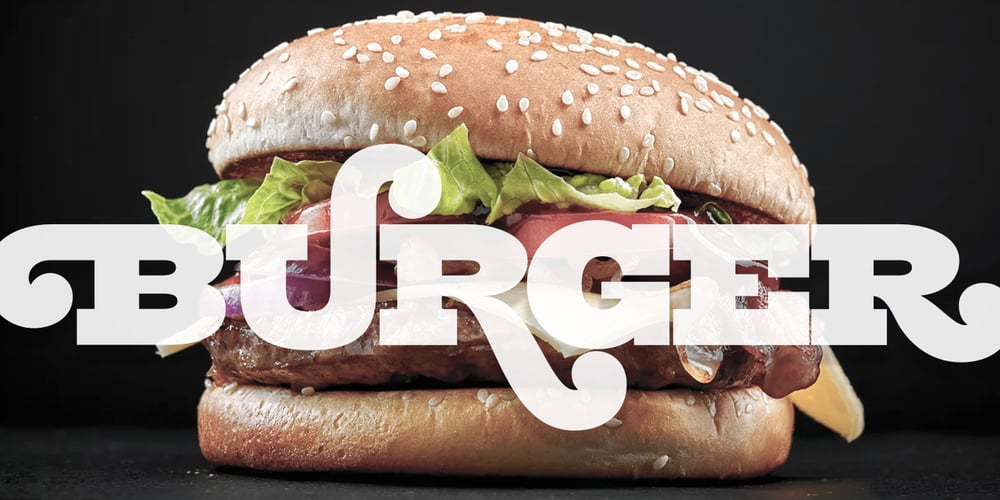
Burger Font Family was designed by Maximiliano R. Sproviero and published by Sproviero Type. Burger contains 3 styles and family package options. Inspired in the world of the fast-food, my aim with Burger was to achieve a sexy slab serif font. Since it’s not very common to see slabs with swashes I consider this project as an experiment with interesting results. In order to mantain an even weight on the written word, all the glyphs including the swashy ones had to look like compact blocks: This makes the font work much better used with almost no leading, as seen in posters above. Despite the formal look of its genre, this slab serif is also very playful and unique. (Maybe unhealthy food deserves better fonts already, right?) Taste Burger, come on, give it a try! On a more personal note: Why I made this font? Some months ago I started the gym and with it, an strict diet to see some results faster… Maybe my temptation is being, in Lacanian terms, “sublimated” by making delicious and unhealthy fonts.